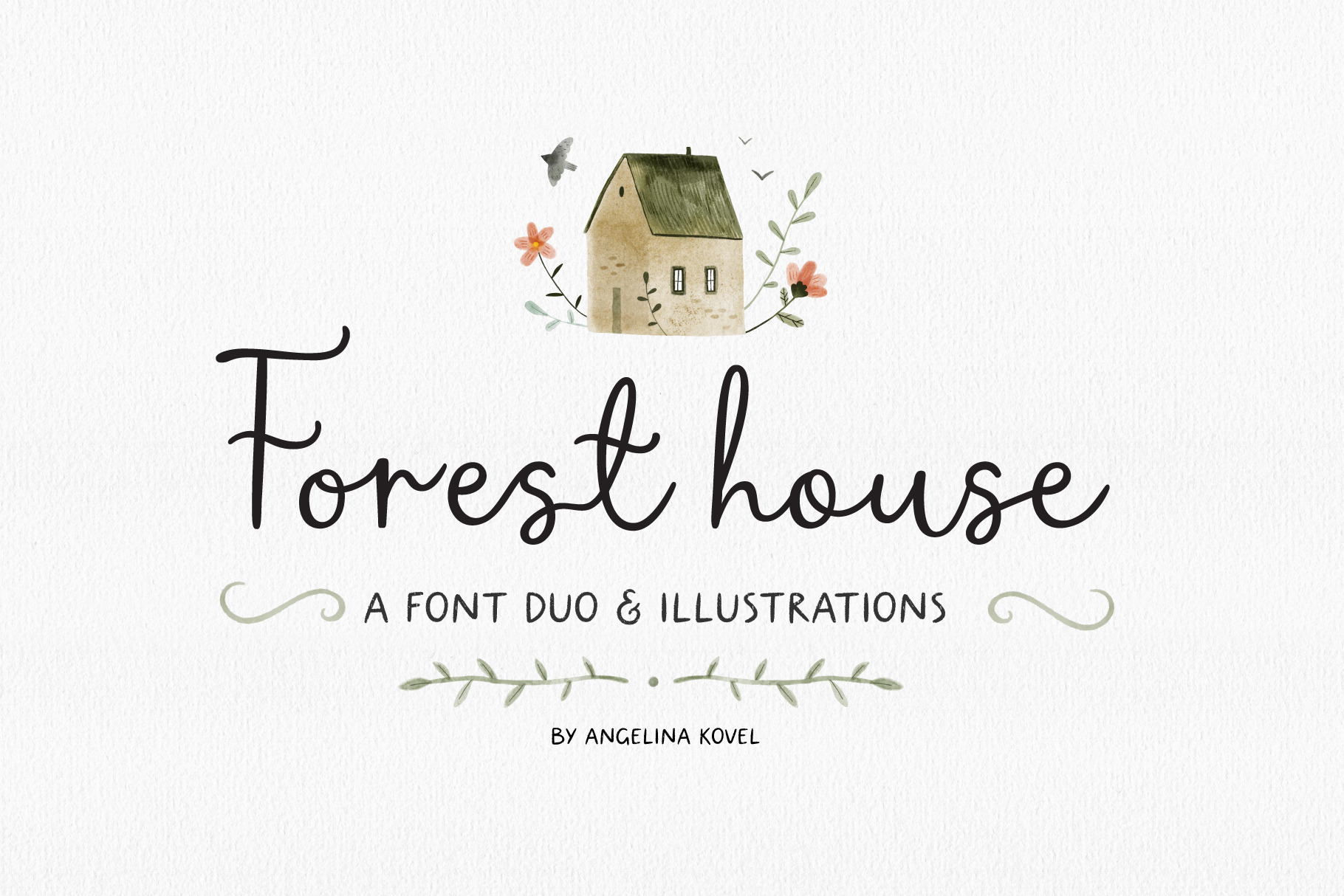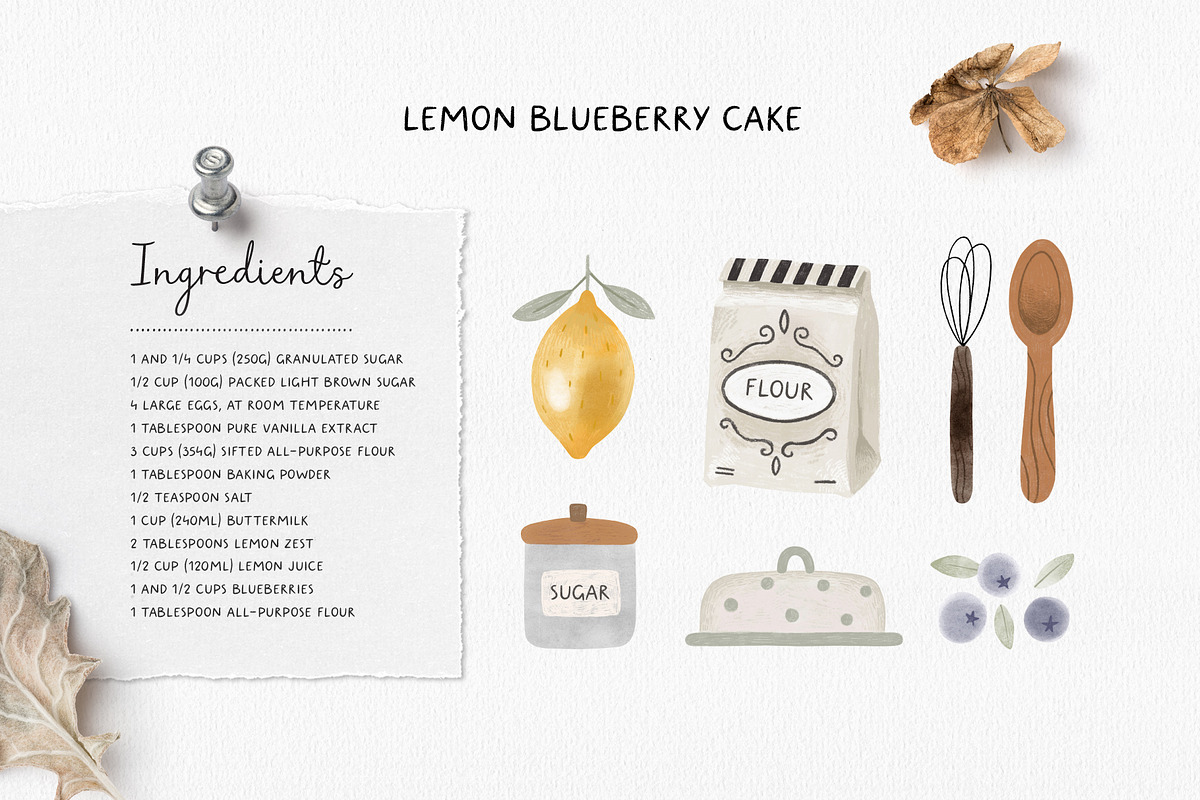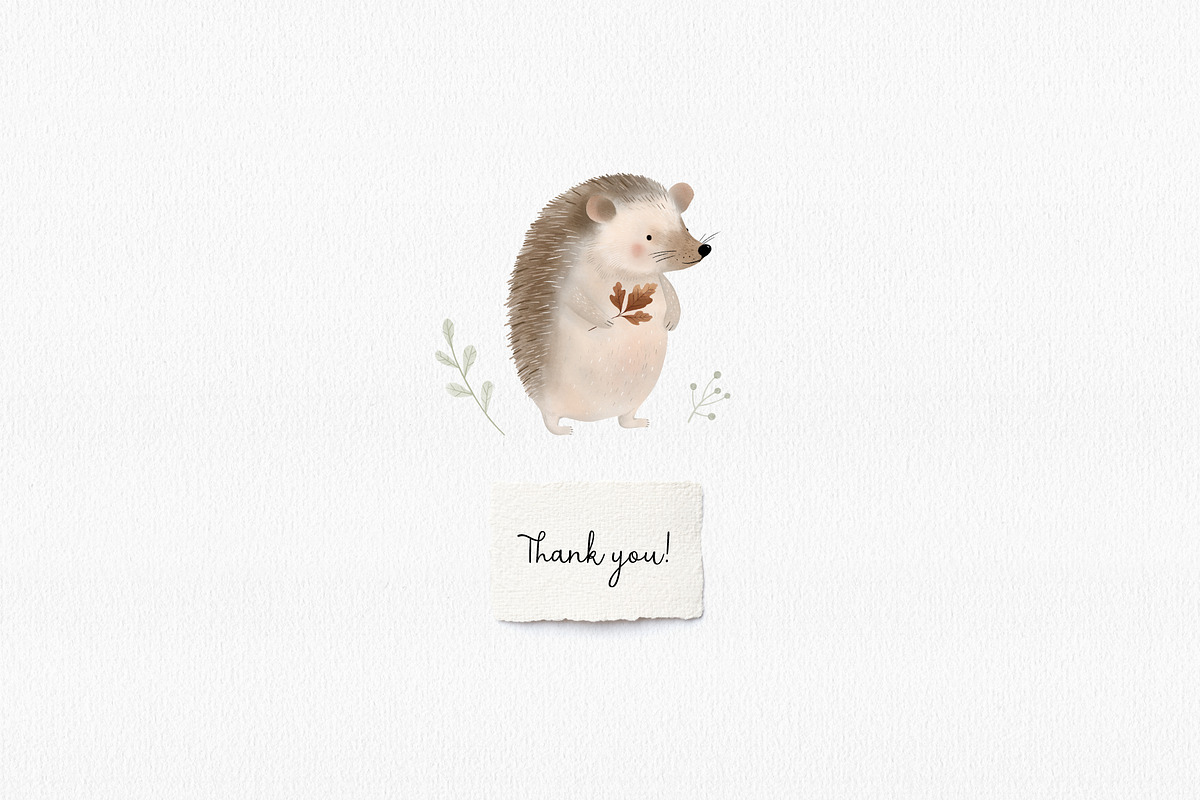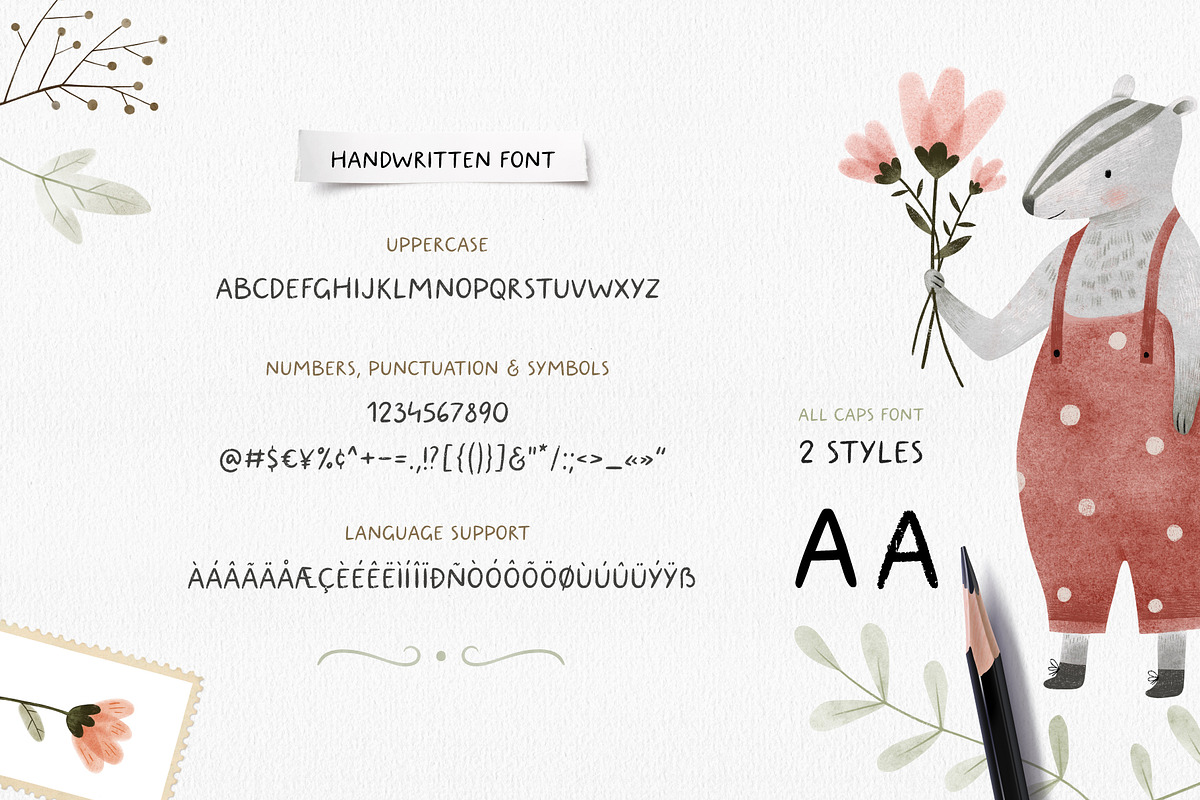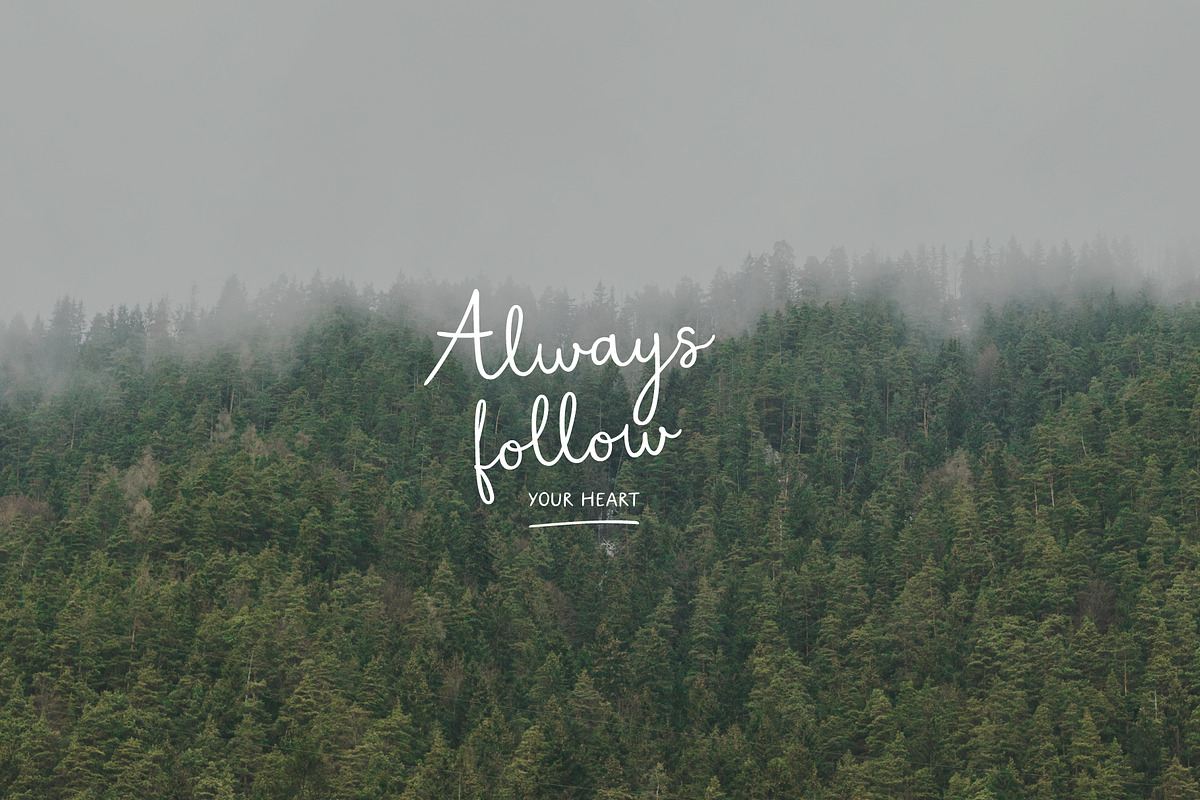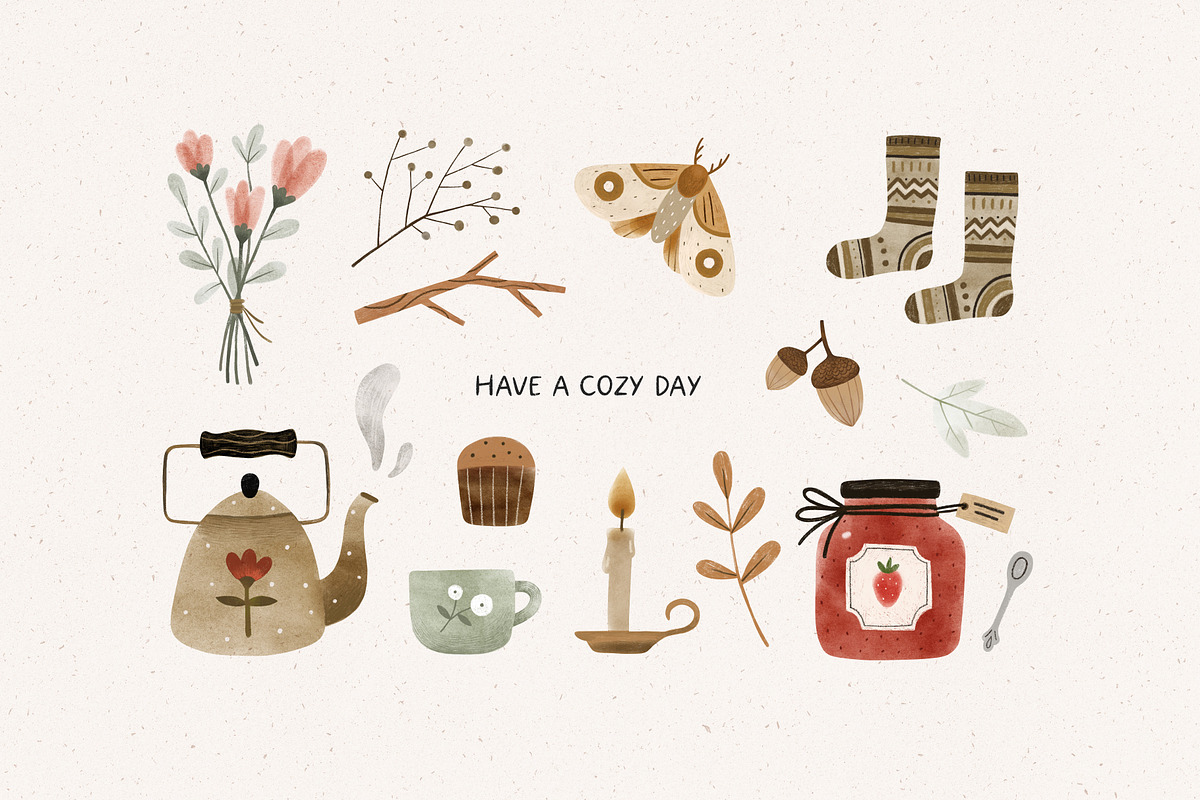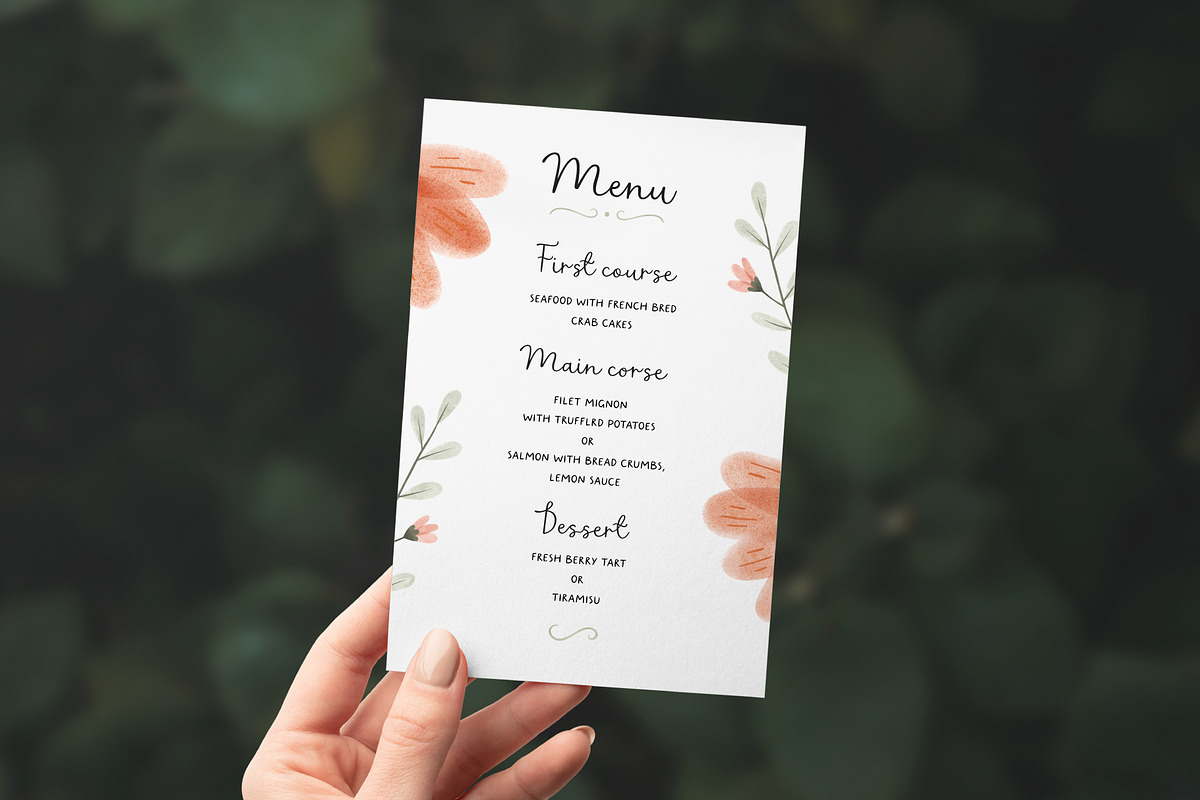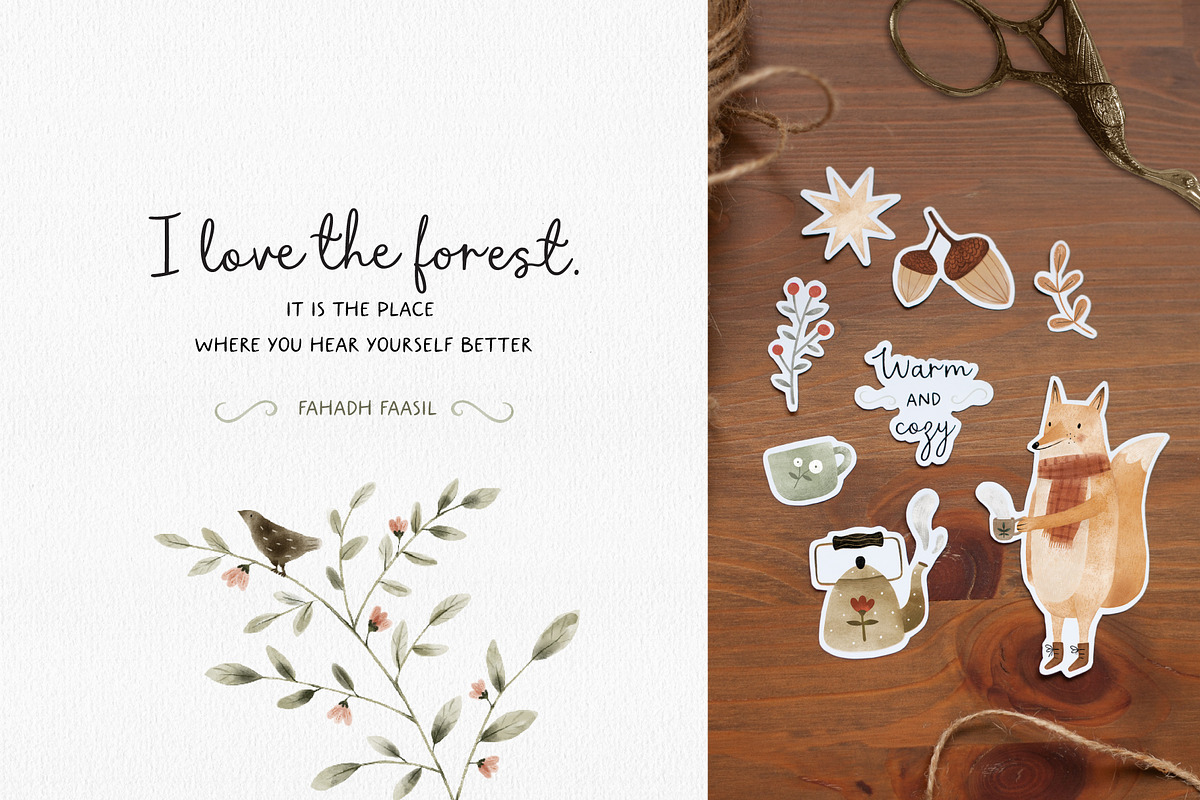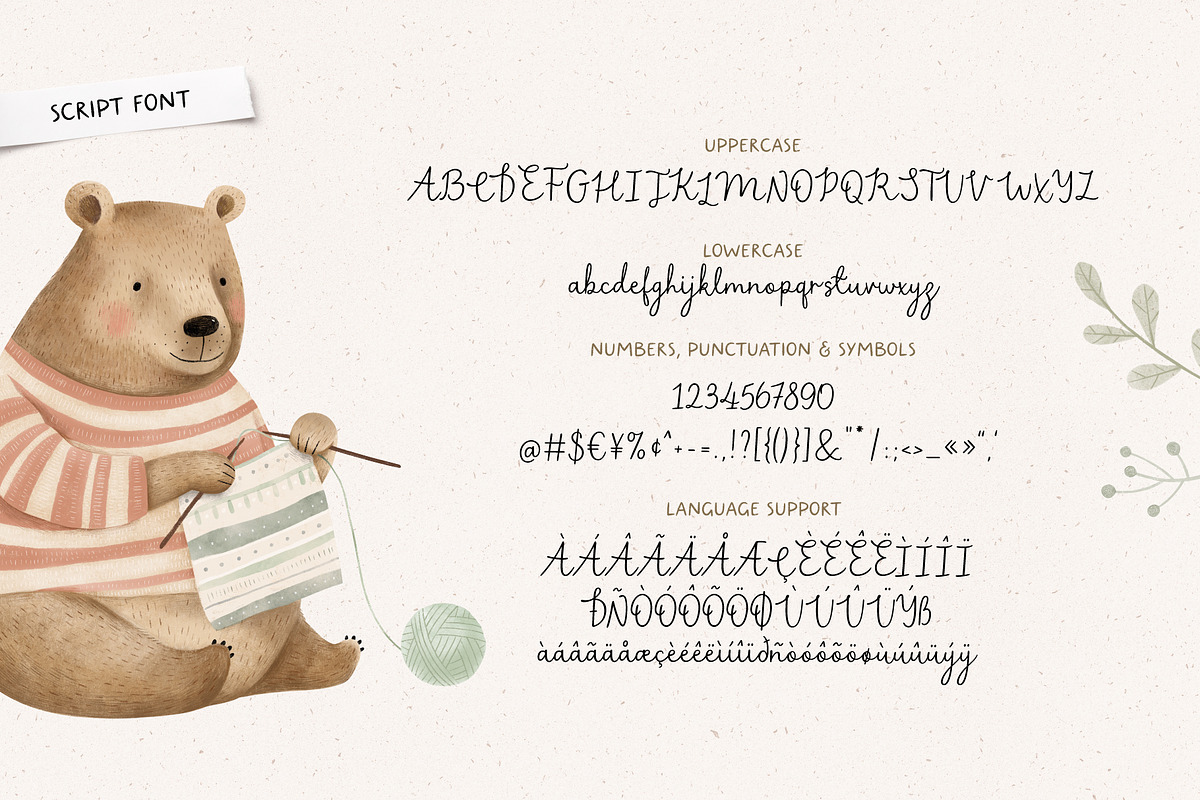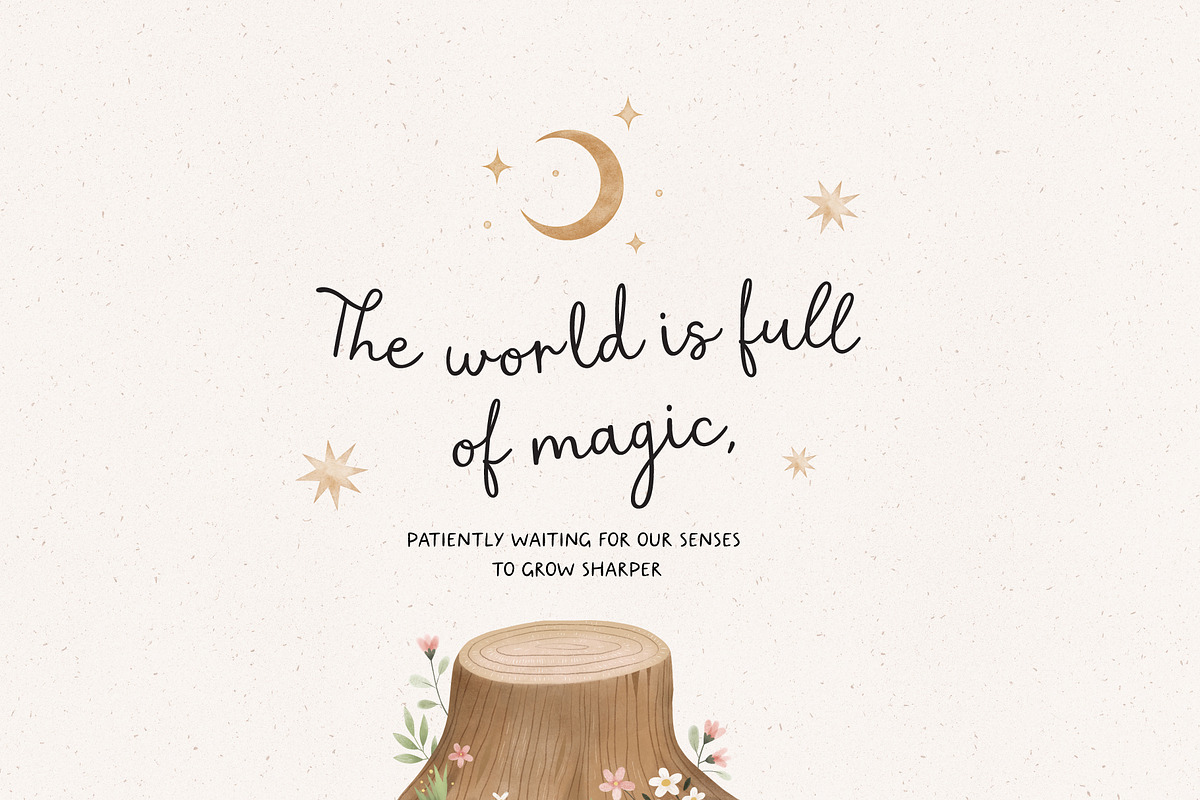
Forest house | Font duo
It is not a secret to anyone that fonts play an essential role in design. They set the mood, evoke emotions, and help form an opinion. And often small details alter the reader’s attitude towards the content. That is why I have decided to create this set. It has two font styles and they convey a whole range of emotions, from delicacy to perhaps even casualness.
The first font style looks like handwritten notes. This font style is pleasant to look at as written with a simple pencil note. The font creates a feeling of coziness and warmth. And it retains readability, due to this style can be used for a long text.
The second font style is crafted with illustrated books in mind. It takes inspiration from vintage illustrations and recipe books. I hope this hand-written style will catch your attention and call to mind something pleasant and authentic. I try to keep the maximum uniqueness of handwritten shape, that evokes a cozy feeling. It will be especially good for small descriptions and headers.
This set is an excellent choice for addition, for illustrations or delightful packaging, Children's Books, labels, logos and so much more. The set was painstakingly handcrafted for these purposes. The set consists of two styles of font and 60 raster illustrations.